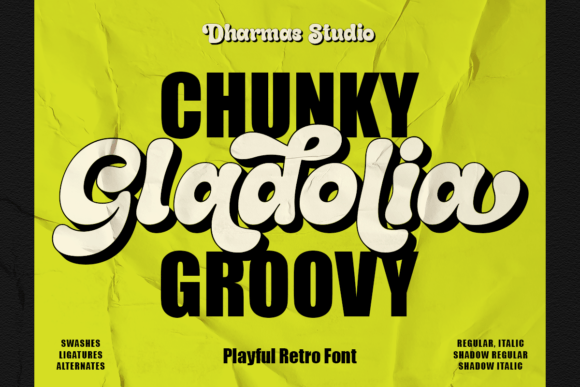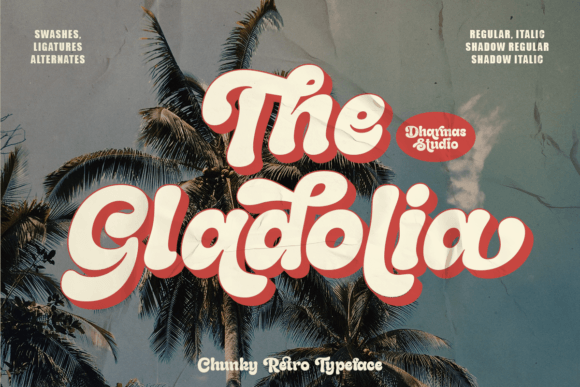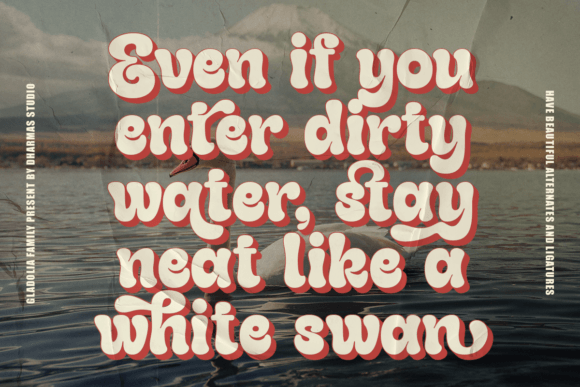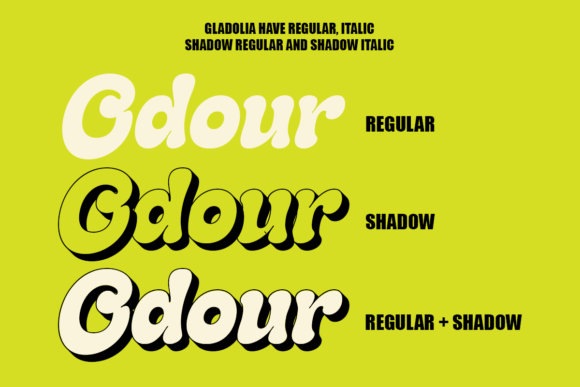
Gladolia Font: Chunky Retro Typography for Playful Designs & Branding!
About the Gladolia Font
The Gladolia Font offers a perfect balance of form and function for your design needs. Get ready to rock your designs with the brand new chunky groovy font, Gladolia!
Gladolia is a chunky typeface with a unique retro style that is sure to make your designs stand out. With 2 different style fonts, regular and oblique, plus an extra Extruded font version for each style, you can easily create eye-catching designs without any extra effort.
This font is perfect for a retro 80s theme and can be used for magazine covers, brochures, logos, headline or quotes, and short paragraphs or content. Each font in the family is dynamic and authoritative on its own, making it perfect for any display project.
Gladolia Font Usage Examples
Gladolia Font Example